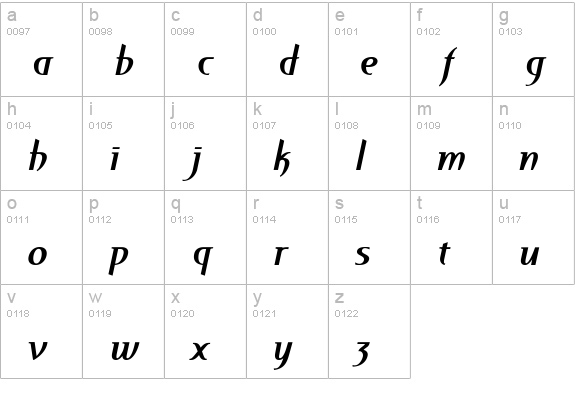
Perceval-BoldItalic Font Details
Perceval-BoldItalic font is a stunning and elegant typeface that combines boldness with a graceful italic style. It exudes sophistication and adds a touch of uniqueness to any design project. With its strong and slanted letterforms, Perceval-BoldItalic captivates the eye and creates a sense of drama and flair. This font is perfect for those who seek a bold yet refined look in their designs. It is ideal for creating eye-catching headlines, logos, branding materials, and more. The boldness of the letterforms adds a sense of power and strength, while the italic style brings a touch of elegance and sophistication. One of the best features of Perceval-BoldItalic font is that it is freely available to download at FontsMarket.com. This means that you can easily access and use this fantastic font without any cost. Whether you are a professional designer or a hobbyist, this font will surely elevate your designs and give them a distinctive edge. Perceval-BoldItalic font is highly versatile and can be used across various design projects, from print materials such as brochures, posters, and invitations to digital projects like websites, social media graphics, and presentations. Its bold and italic combination brings a sense of balance and harmony to your designs, making them visually appealing and captivating. With its high readability and stylish aesthetics, Perceval-BoldItalic font is an excellent choice for both body text and display purposes. Its well-crafted letterforms ensure clarity and legibility even at smaller sizes, while its boldness adds impact and emphasis to larger headlines and titles. In conclusion, Perceval-BoldItalic font is a must-have for designers who want to add a touch of boldness and elegance to their projects. Its freely available download at FontsMarket.com makes it even more appealing and accessible. So why wait? Download Perceval-BoldItalic font today and unleash your creativity with this stunning typeface.